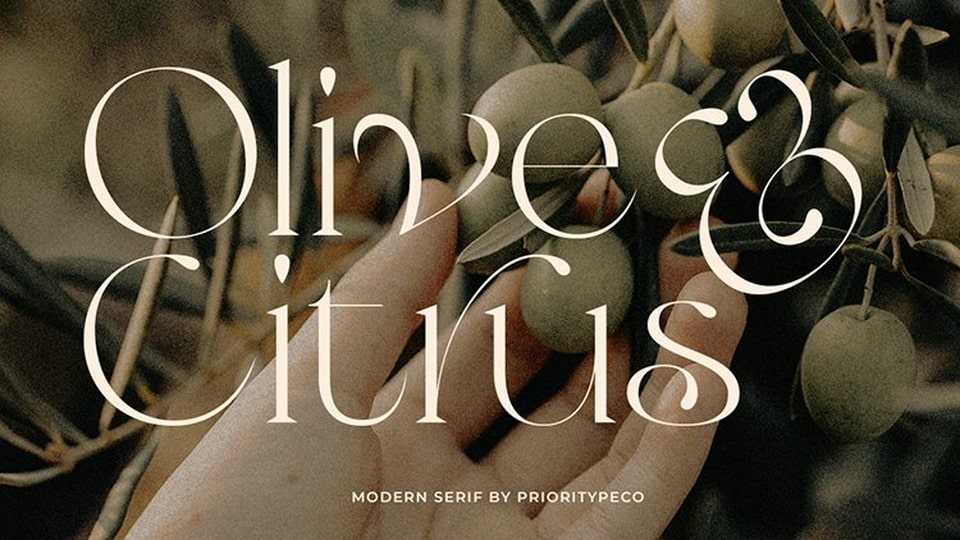
Download Olive & Citrus font, an elegant and sophisticated serif typeface with great attention to details. With its modern look Olive & Citrus font is suitable for branding designs, logos, magazines, and social media posts.